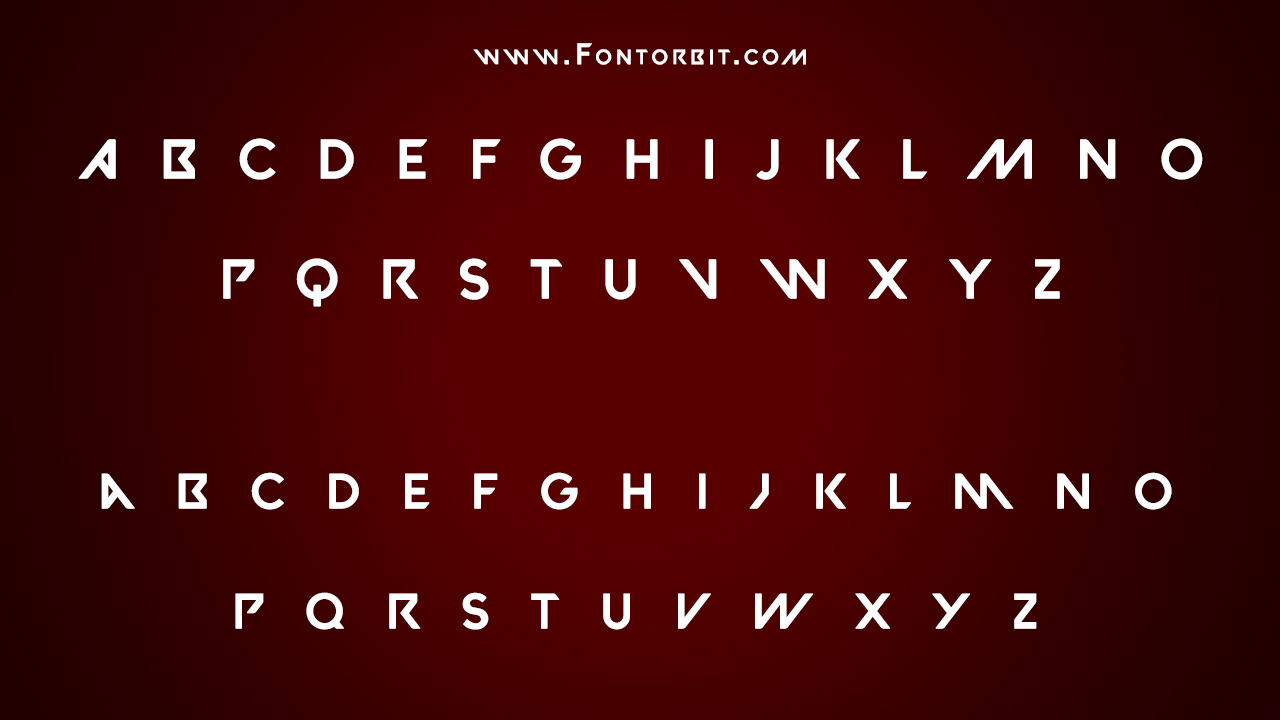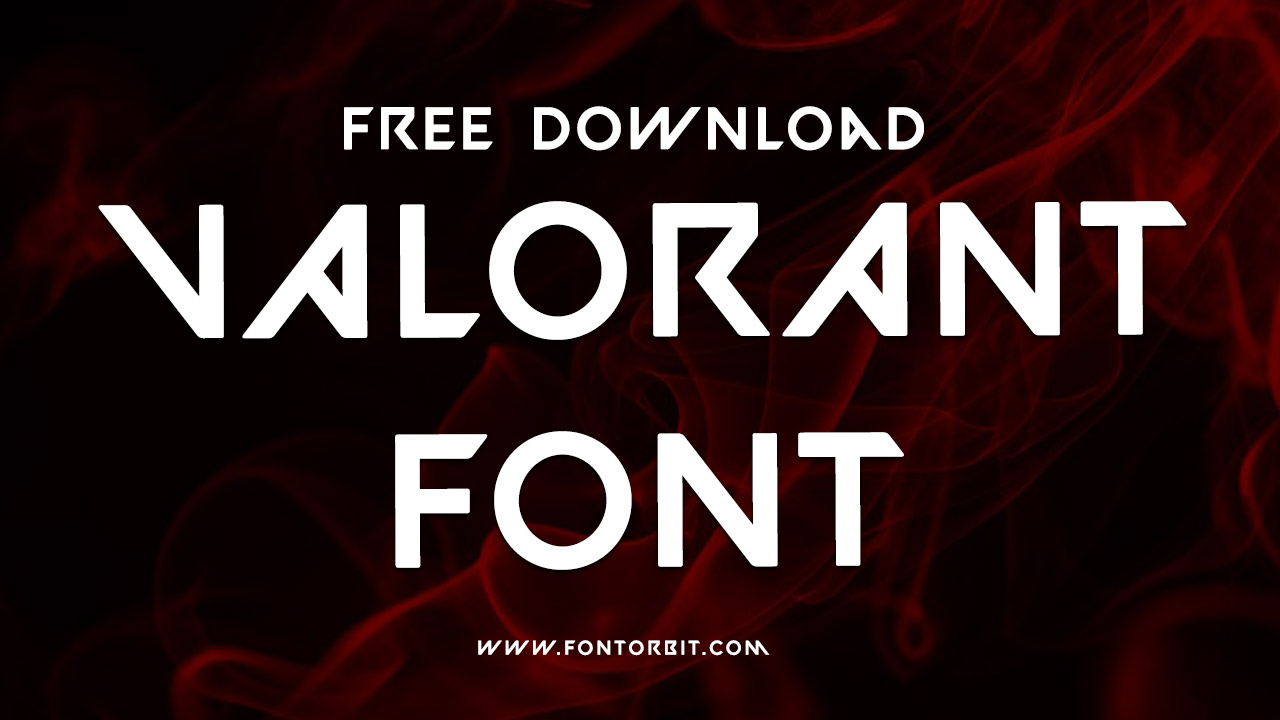
The Valorant Font, designed by Bryan T, is a striking techno-style typeface that was first released in 1997. Known for its bold, angular design, this font draws inspiration from the logo of the popular first-person shooter game Valorant.
Its futuristic aesthetic makes it an excellent choice for a wide range of design projects, particularly gaming and technology-related ones. Available for free for personal use, the Valorant Font stands out with its unique style and versatility.
Type Of The Valorant Font
a. Valorant Regular
The Valorant Font prominently appears in the Valorant game, including in the game’s logo and various in-game text elements, and contributes to the game’s distinct visual identity.
Additionally, this font is popular among designers for game-inspired graphics and digital content, allowing them to capture the dynamic and modern style of the Valiant universe in their creative projects.
- Graphic Design
- Gaming Content
- Personal Projects
The Valorant Font offers a sleek, techno-inspired look, making it a popular choice for personal and gaming-related design projects. Its bold, angular design adds a modern touch to any visual work.
2.What Is The Name Of The Font Used In Valorant Game?
The font used in the Valorant game logo and various in-game texts is a proprietary typeface, but the closest free font available is the Valorant Font.
3.What Are The Differences Between The Valorant Font And Other Similar Fonts?
The Valorant Font features a modern style with angular and techno-inspired design elements, differentiating it from more traditional similar fonts.
5.What Are The Main Styles Of The Valorant Font?
The main styles include Valorant Regular, Valorant Bold, and Valorant Mono.